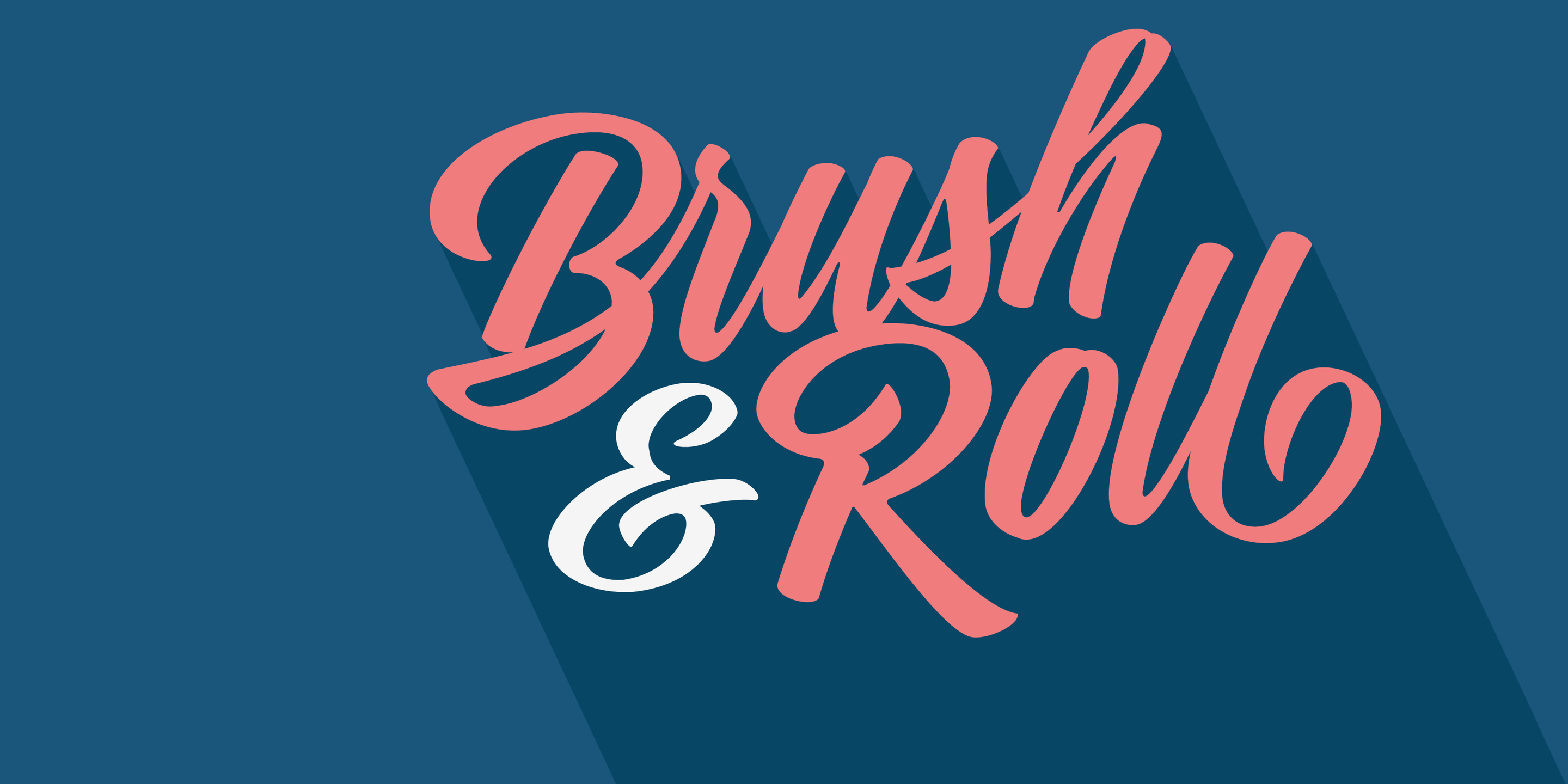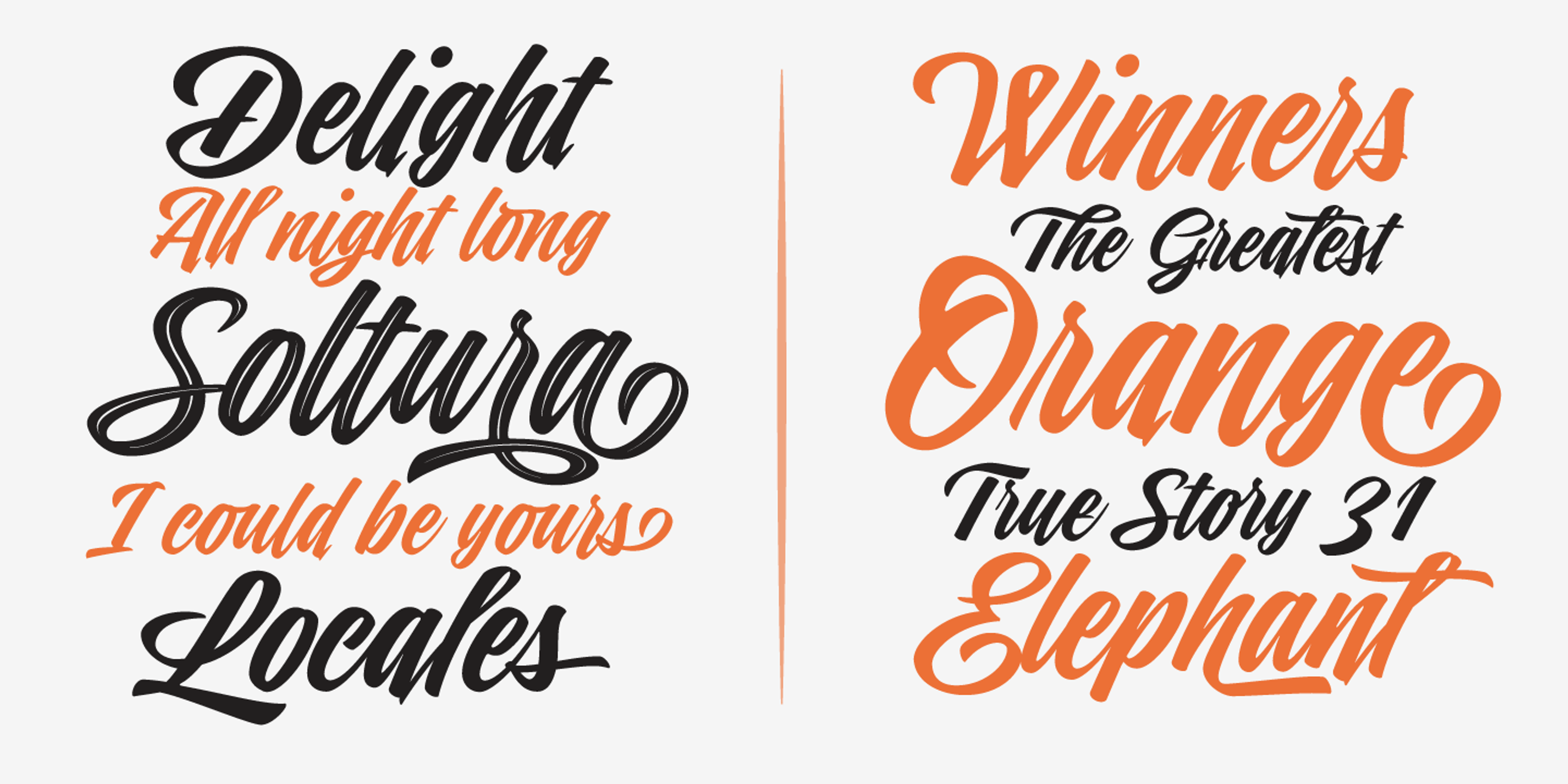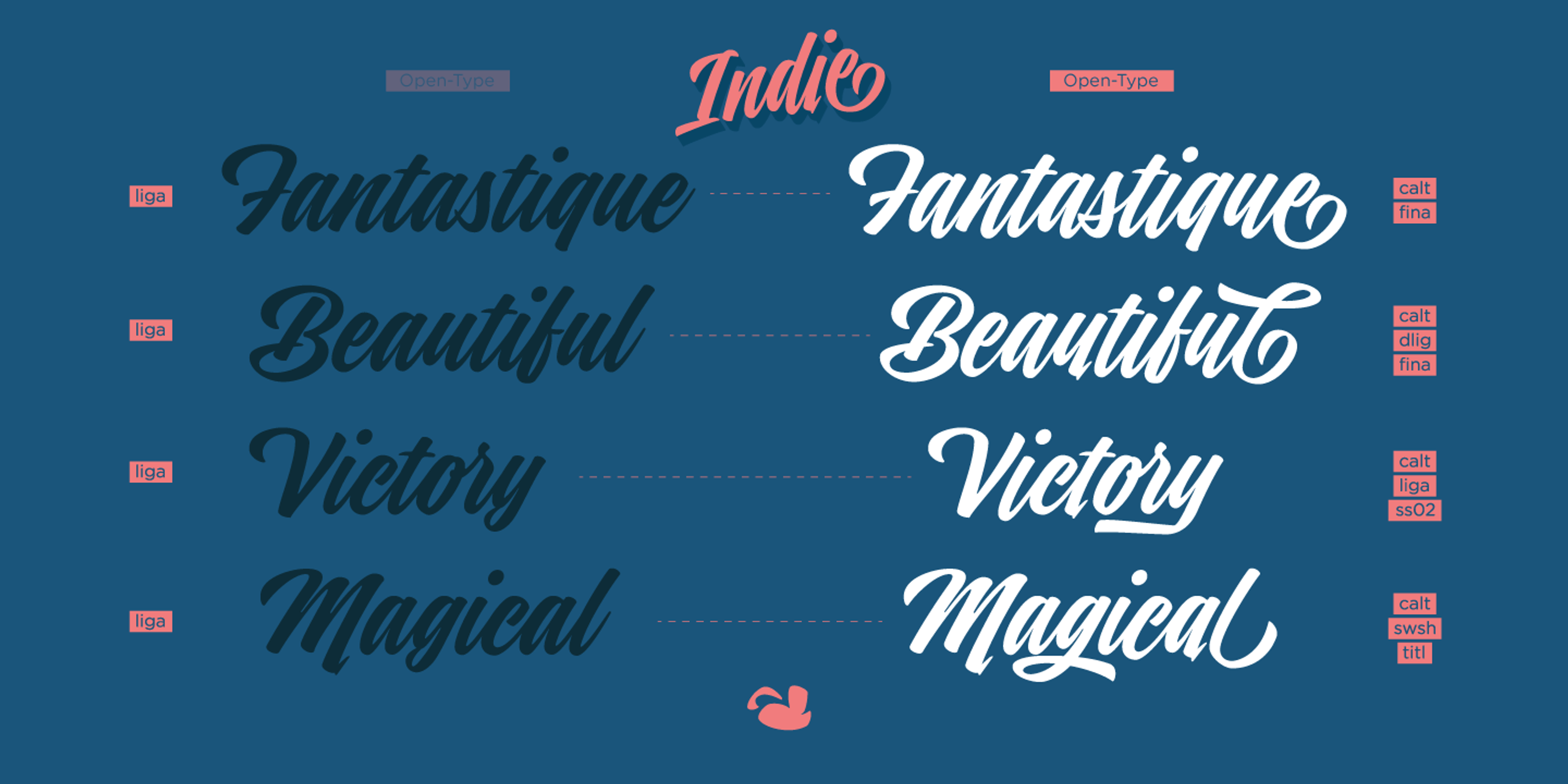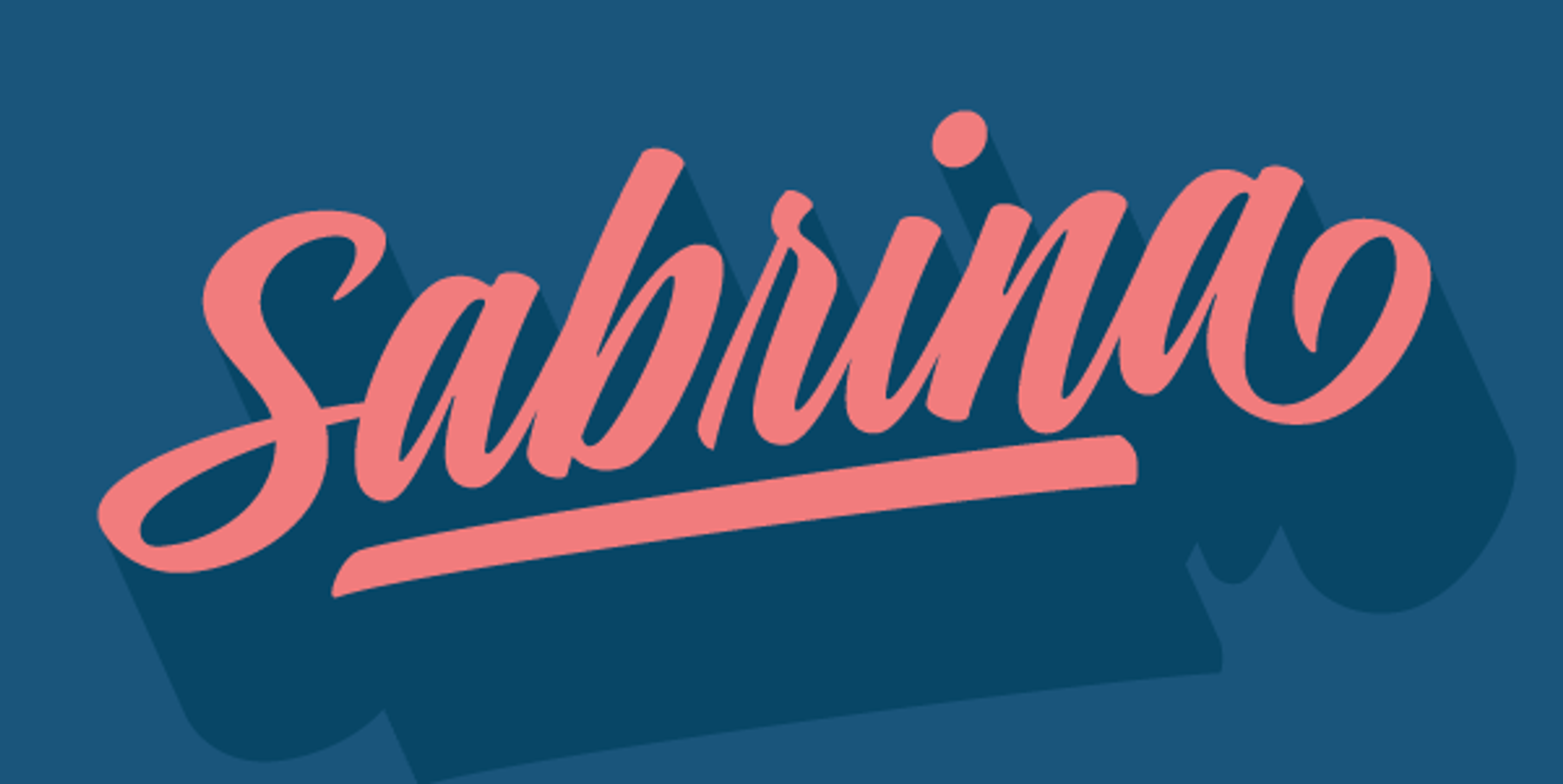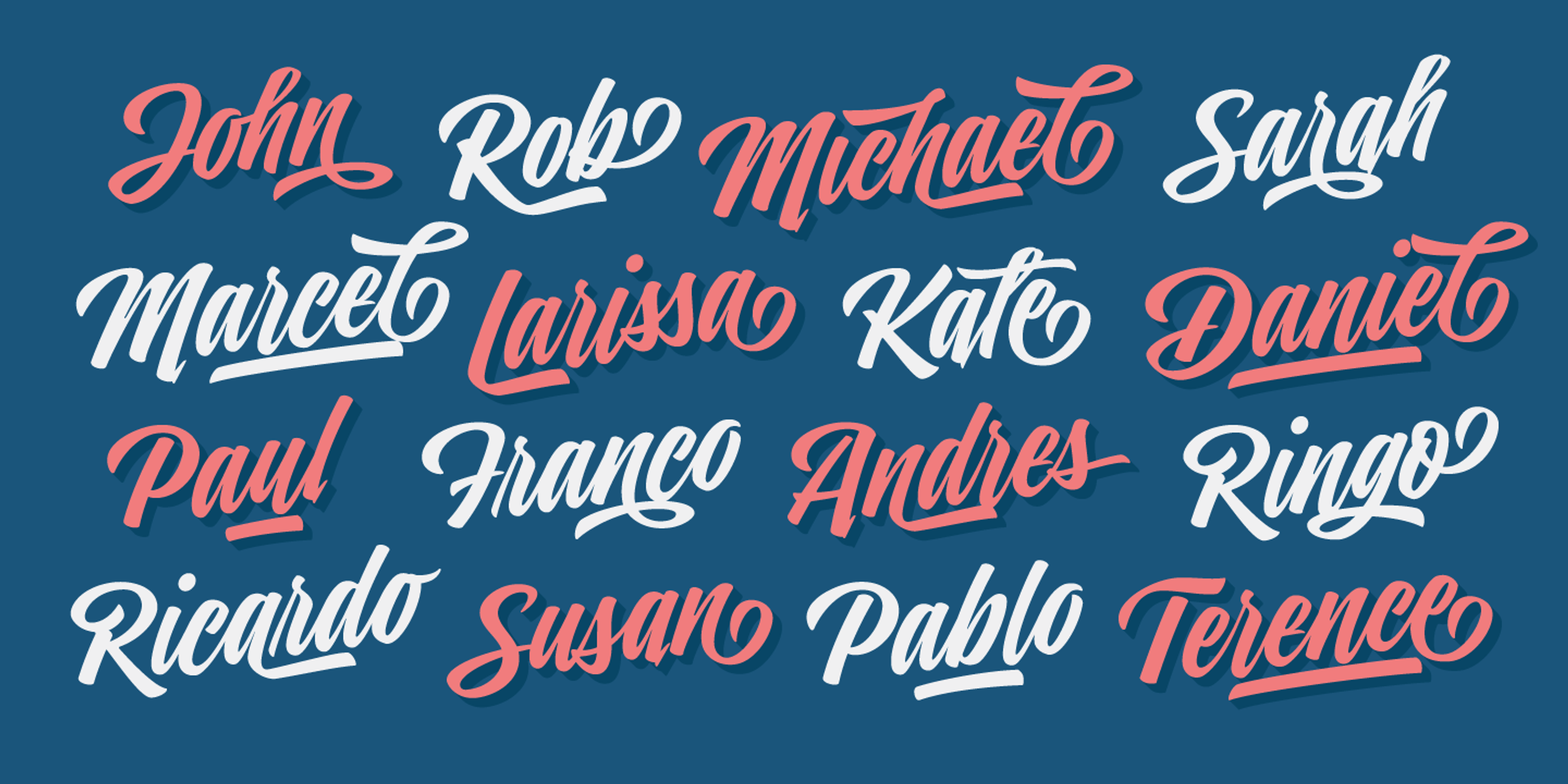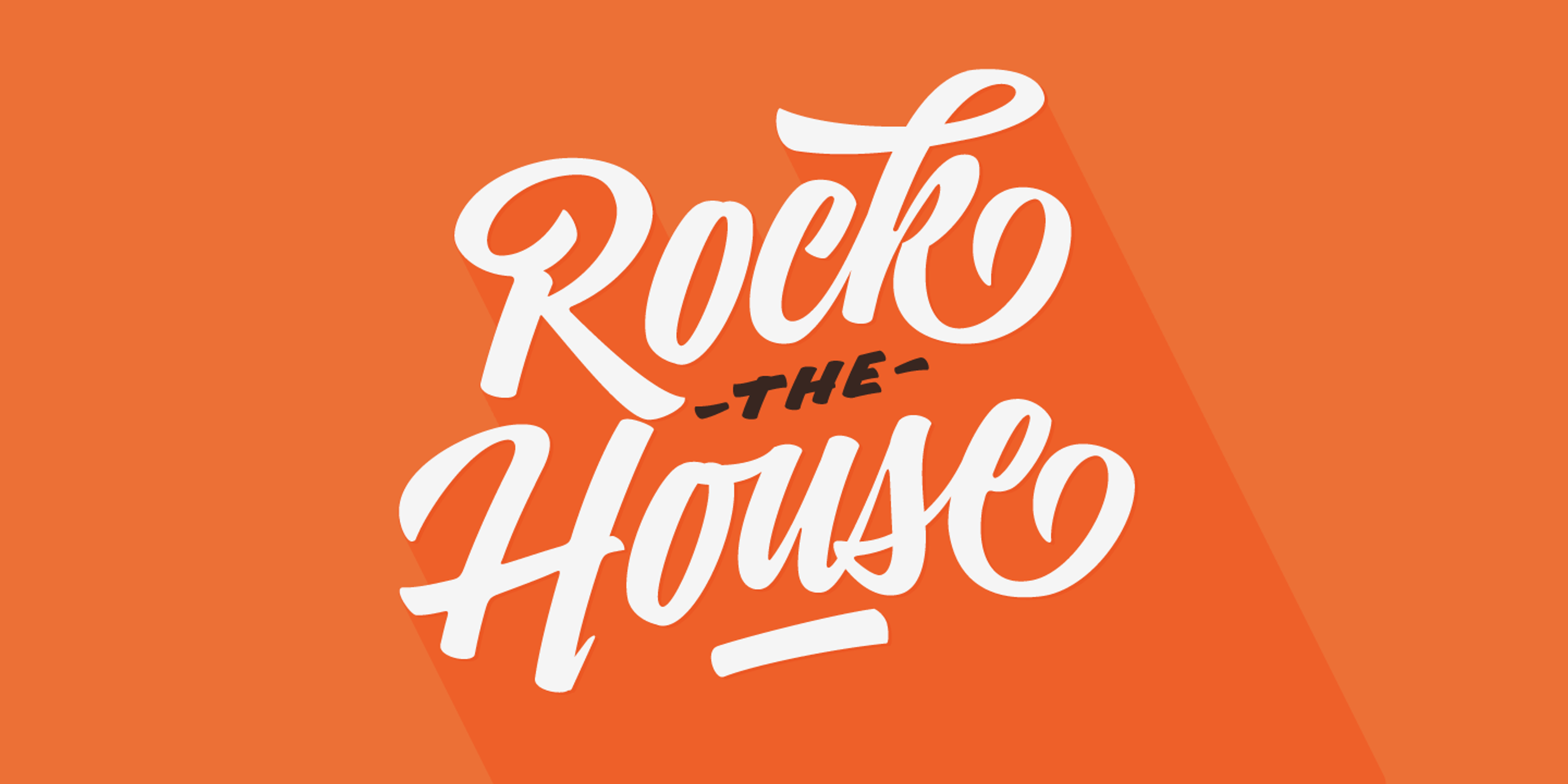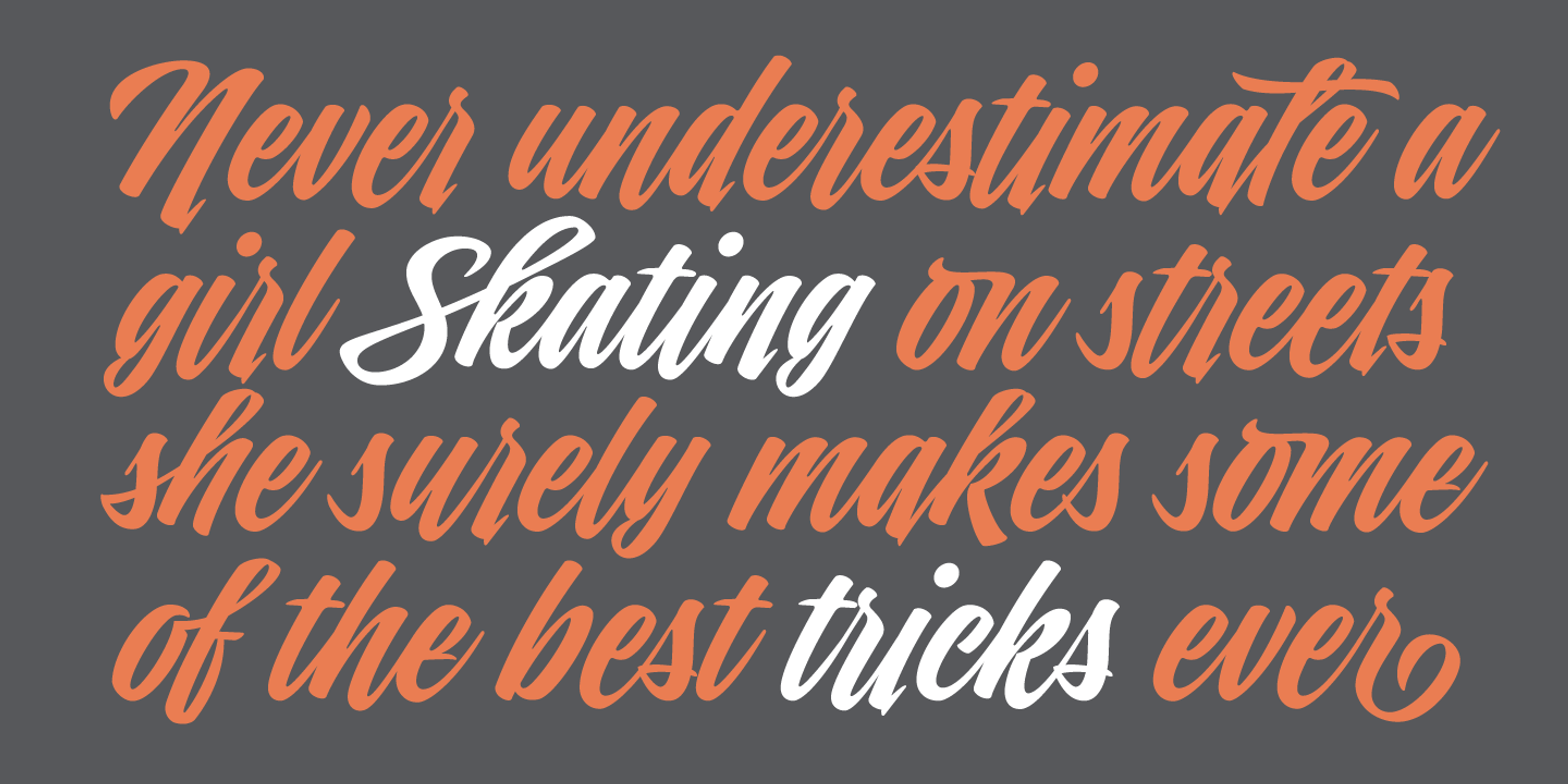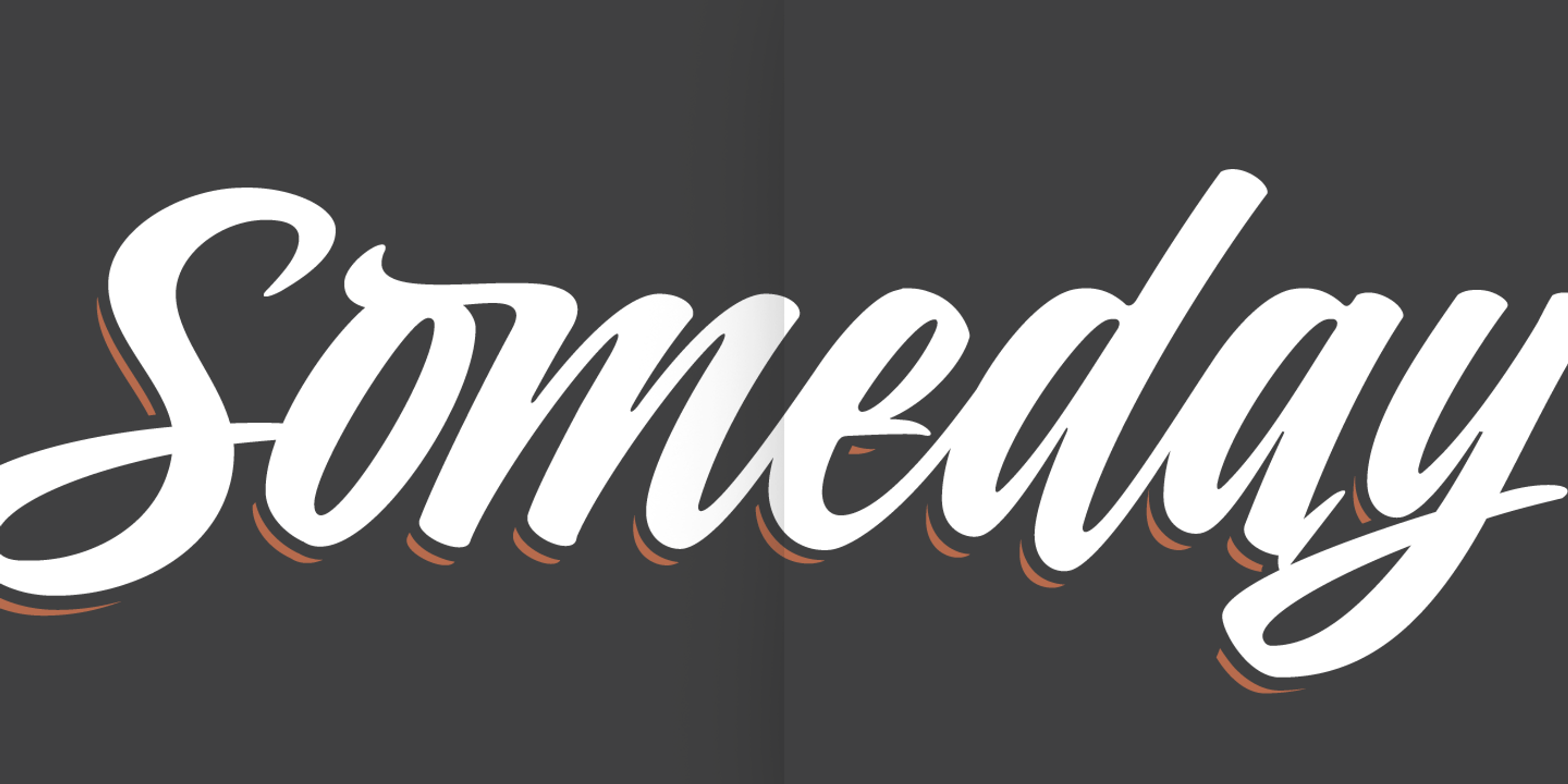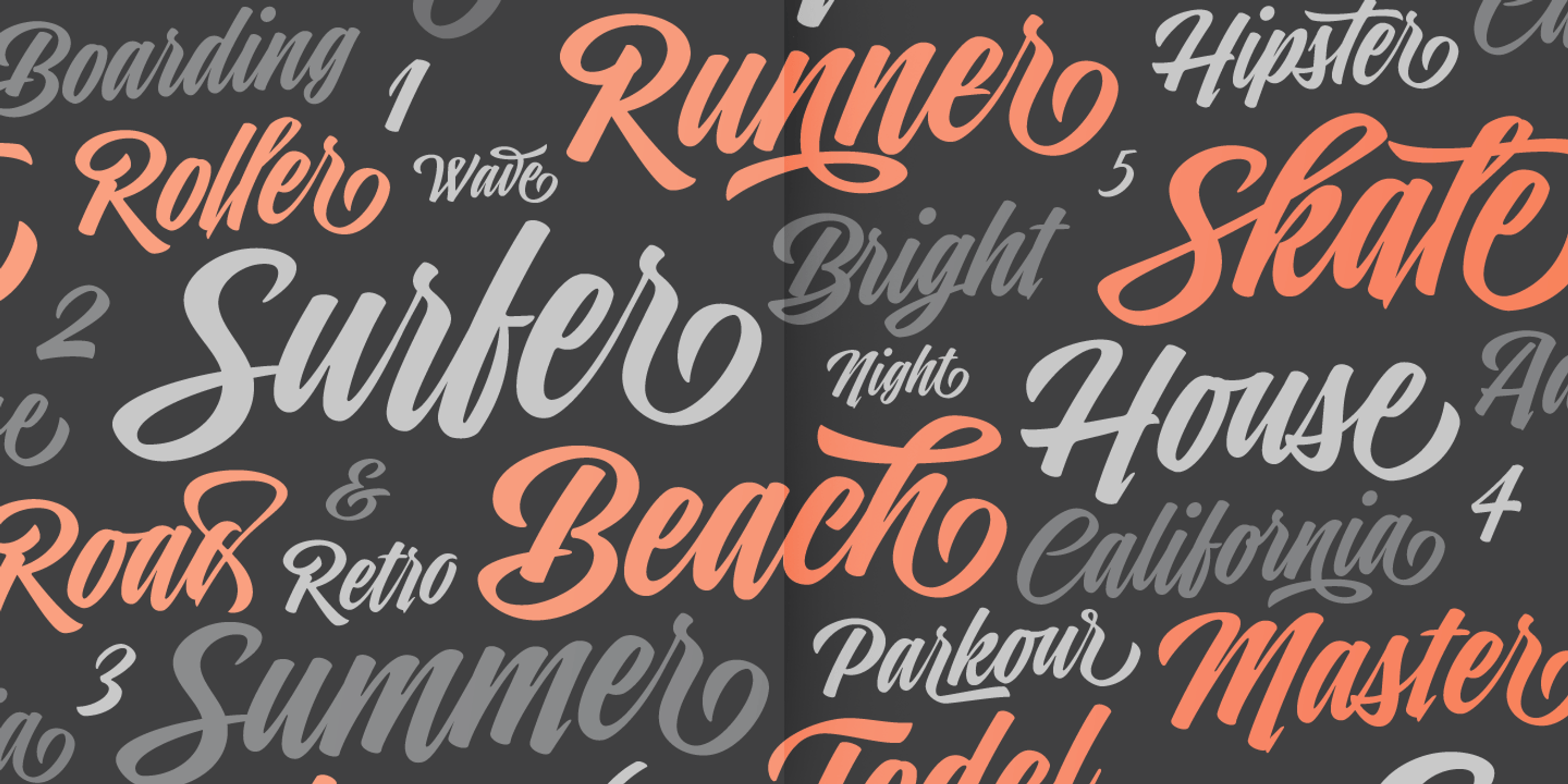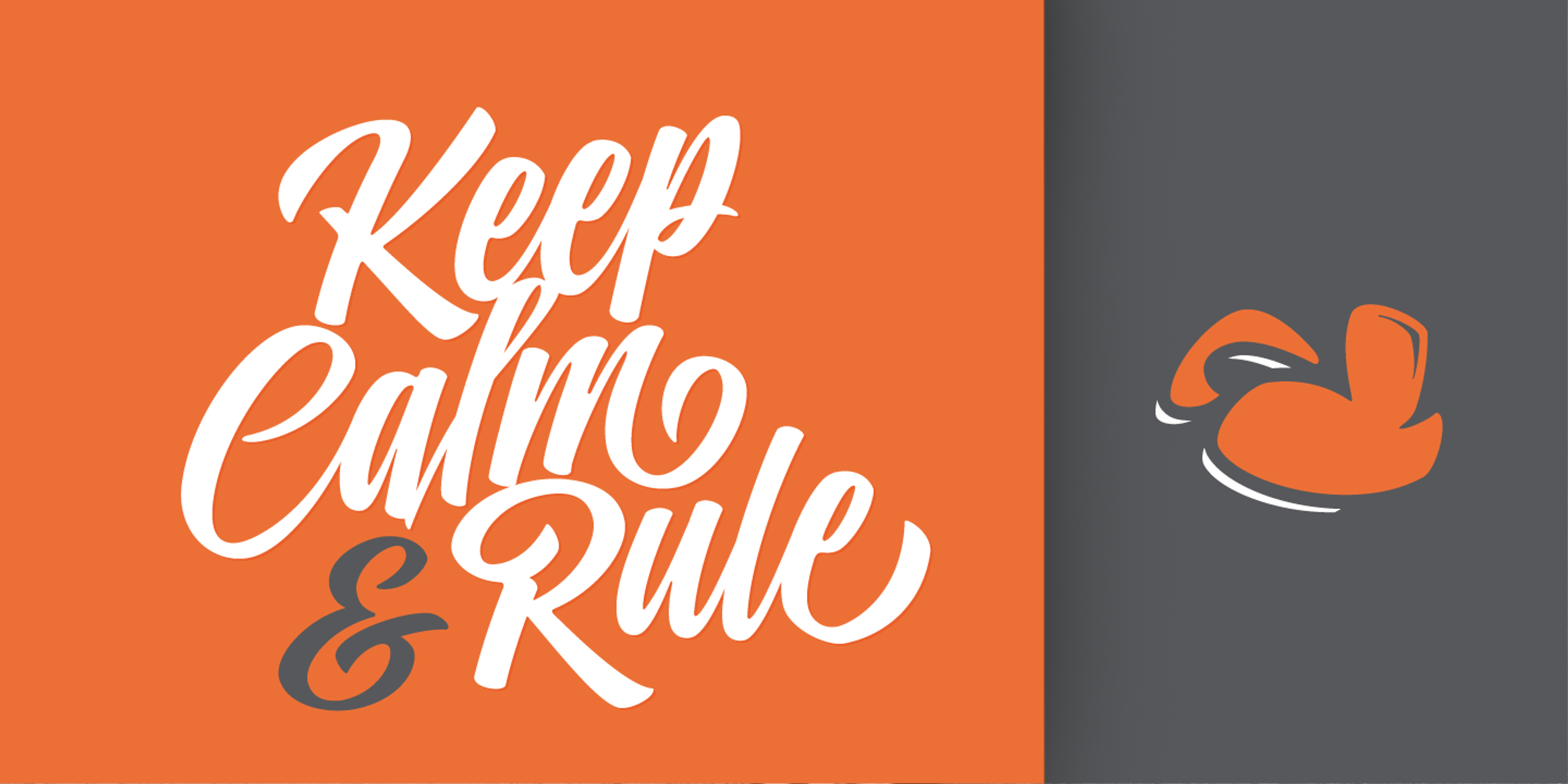
Indie font by Sproviero Type — the connected script words “Brush & Roll” in pink with a white ampersand, all with long dark drop shadows
Indie font by Sproviero Type — the word “Indie” in a connected script, and four pairs of connected script words (“Fantastique”, “Beautiful”, “Victory”, and “Magical”) demonstrating ligatures and stylistic alternates.
Indie font by Sproviero Type — the word “Sabrina” in a connected script with a long shadow
Indie font by Sproviero Type — a grid of sixteen names in a connected script, alternating between coral and white, with names like John, Michael, Sarah, Daniel, Paul, and Ricardo.
Indie font by Sproviero Type — the words “Rock THE House” in a connected script, with “THE” in smaller, upright sans-serif letters.
Indie font by Sproviero Type — the phrase “Never underestimate a girl Skating on streets she surely makes some of the best tricks ever” in an upright connected script, with “Skating” and “tricks” in white and the rest in orange
Indie font by Sproviero Type — the word “Someday” in a connected, upright, brush script with a brown drop shadow.
Indie font by Sproviero Type — a collage of words in a connected script, some in light gray and some in coral, including “Runner”, “Skate”, “Surfer”, and “Beach”
Indie font by Sproviero Type — the words “Keep Calm & Rule” in a connected script, with an orange abstract icon on a gray panel to the right
Indie font by Sproviero Type — a vertical orange line separating two columns of text, with the left column showing the words “Delight,” “All night long,” “Soltura,” “I could be yours,” and “Locales” in black and orange connected script, and the right column showing “Winners,” “The Greatest,” “Orange,” “True Story 31,” and “Elephant” in orange and black connected script
Indie Inline
Indie Regular
Indie Shade
Indie Shade Solo
Indie Capitals Black
Indie is a lively brush script capturing free-spirited, sun-soaked summers. Inspired by the pulse of street style and hand-painted signs — with a nod to Carl Rohrs — it channels the expressive flow of a pointed brush with bold curves and a laid-back rhythm. Regular, Inline, Shade, Shade Solo, and Caps all deliver a typographic palette perfect for live event posters, artisanal gift packaging, pop music branding, rebellious fashion labels, or anything needing daring spontaneity and edge.
Ligatures
Discretionary Ligatures
Contextual Alternates
Ornaments
Stylistic Alternates
Swashes
Stylistic Set 1
Stylistic Set 2
Stylistic Set 3
Stylistic Set 4
Fractions
Titling
Final Forms